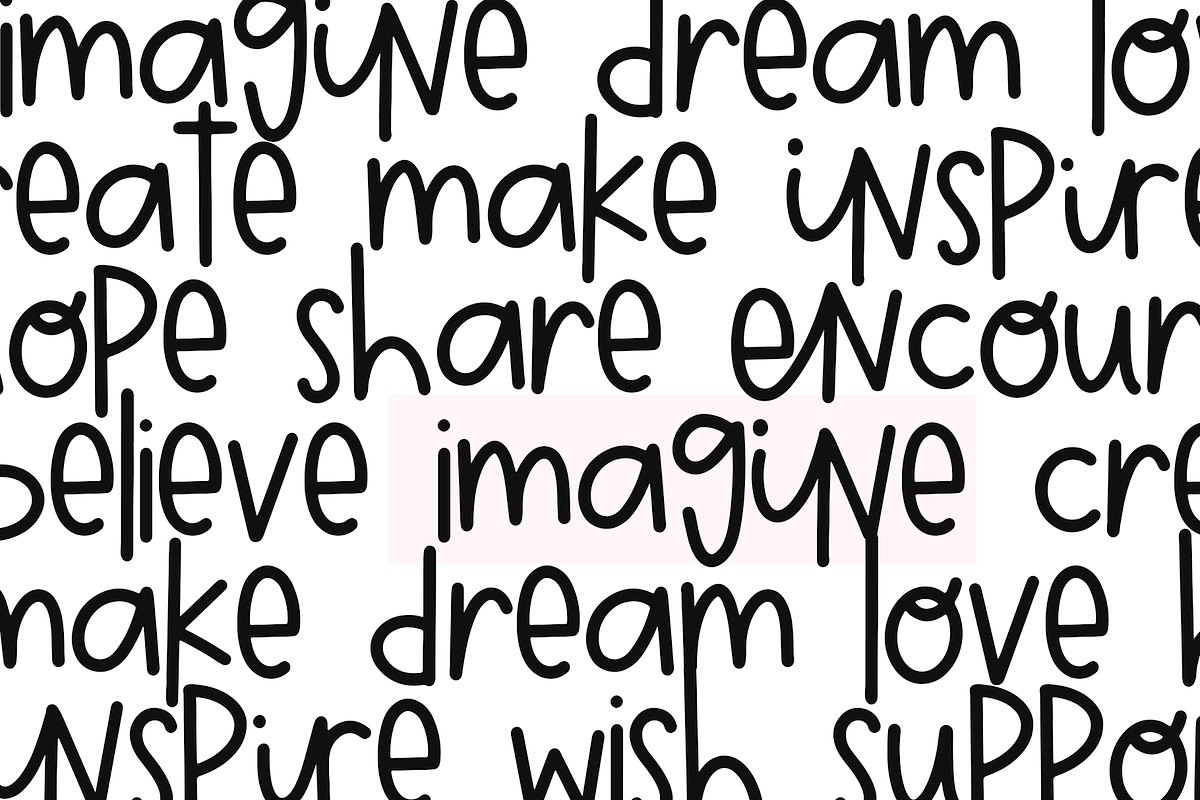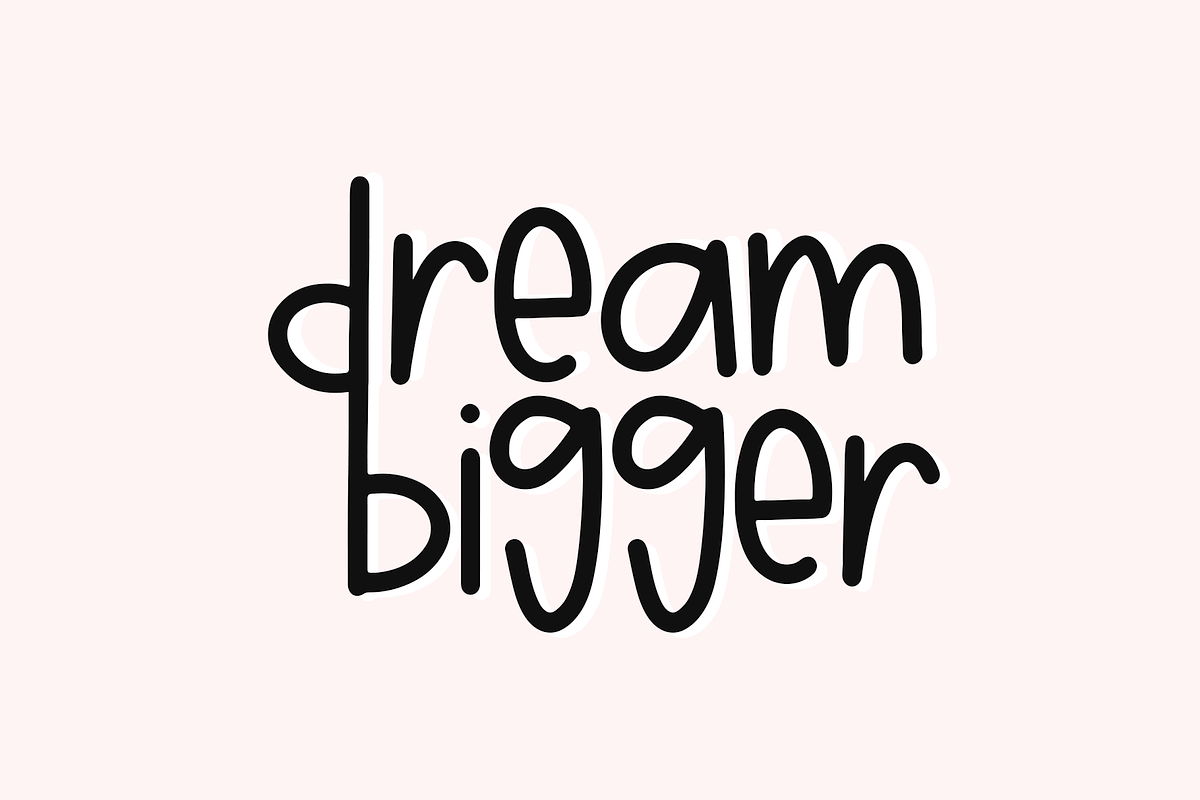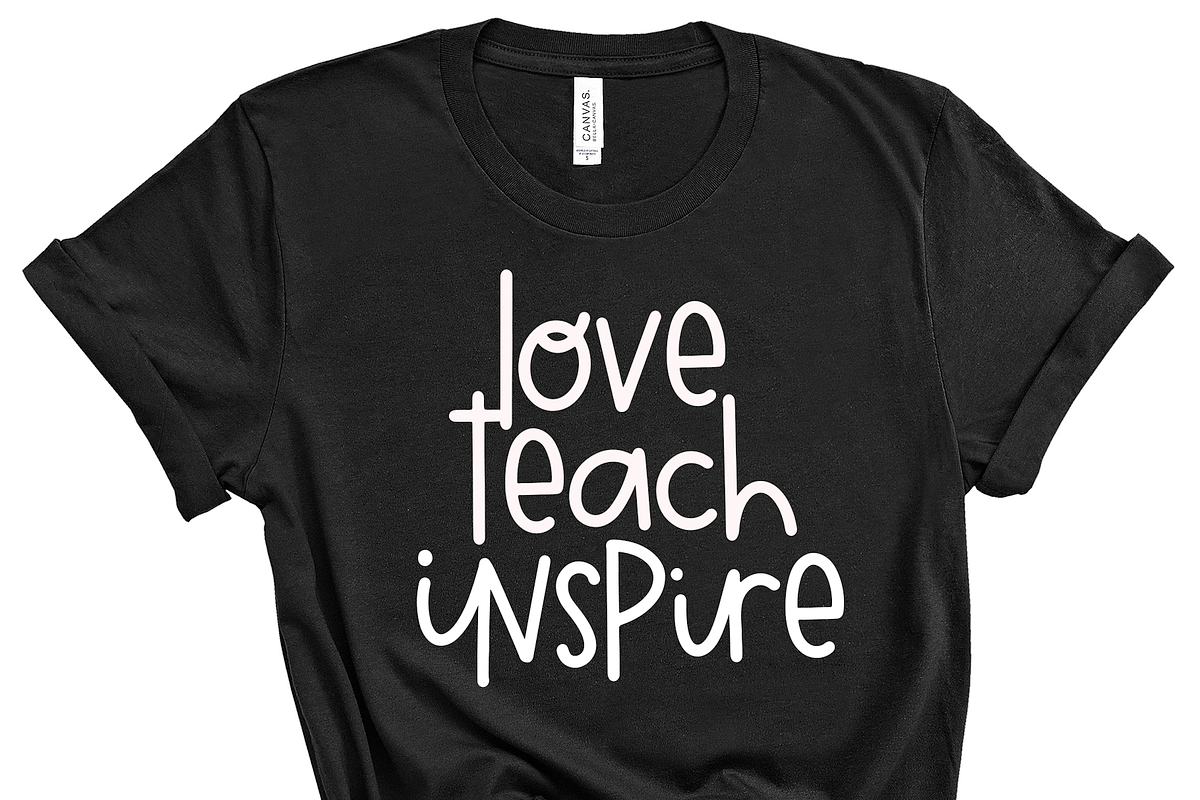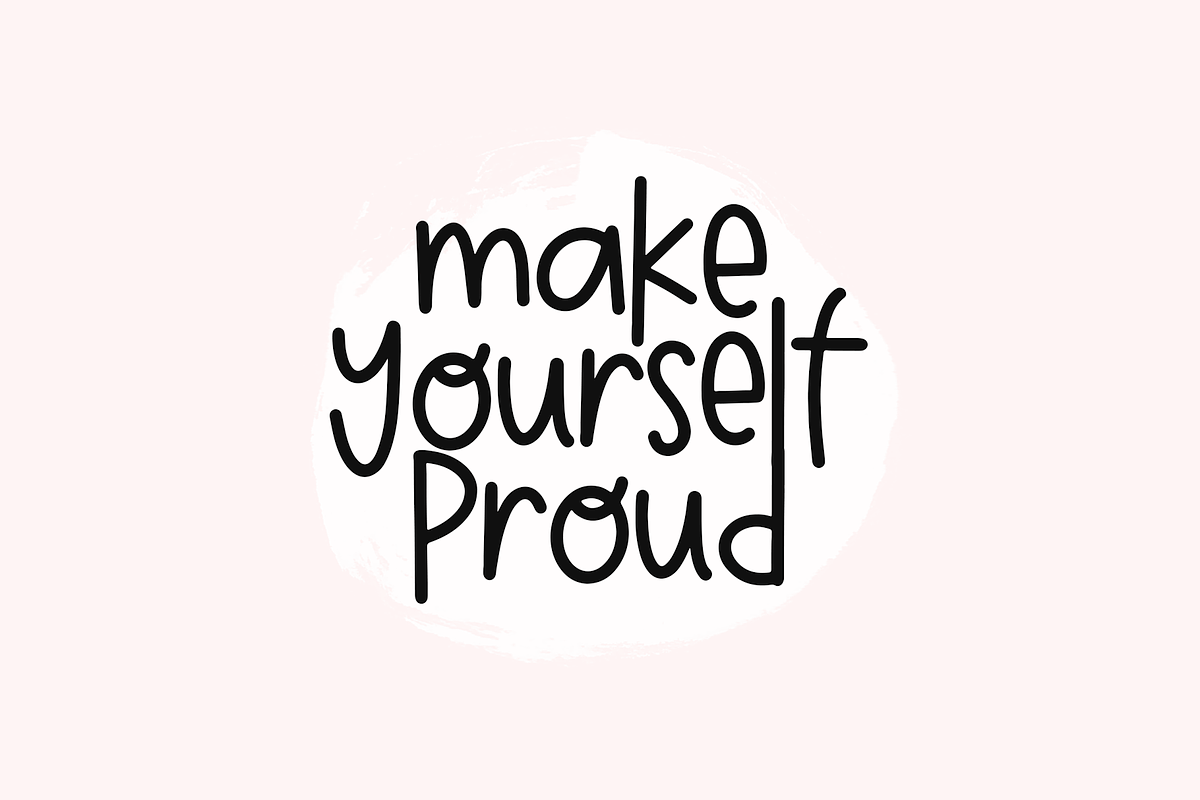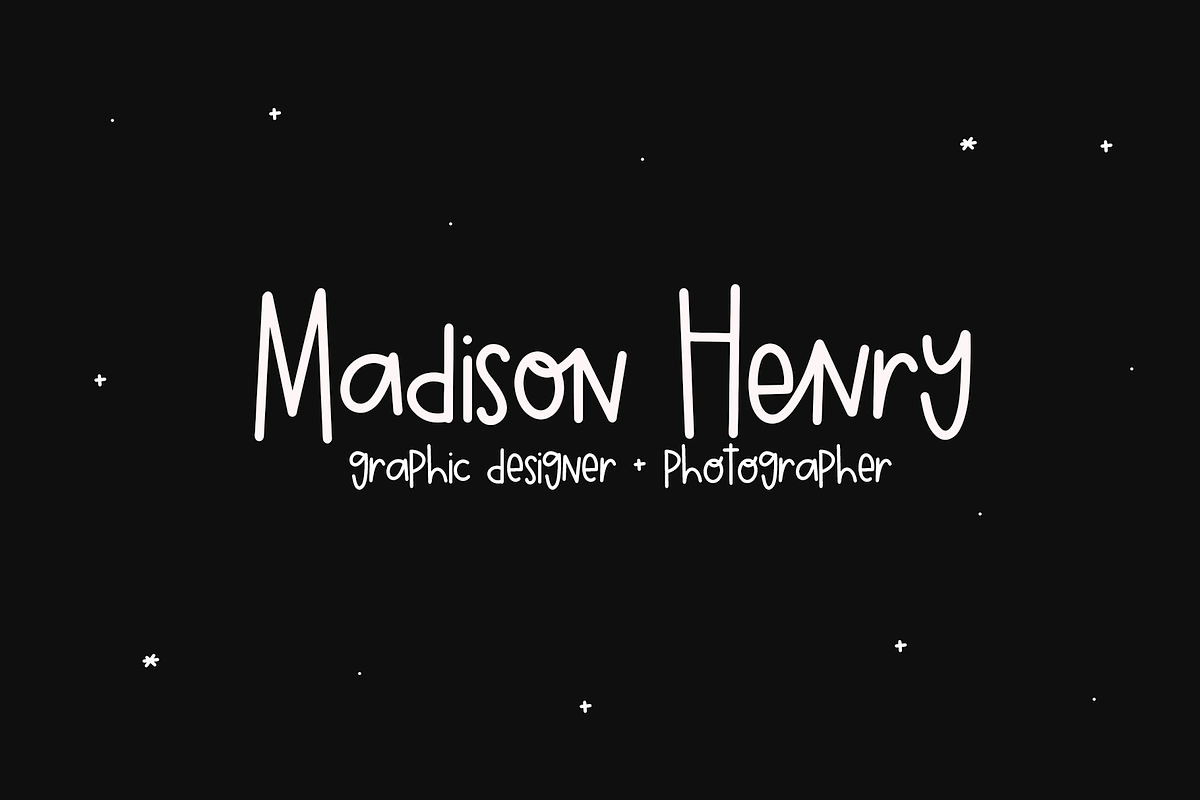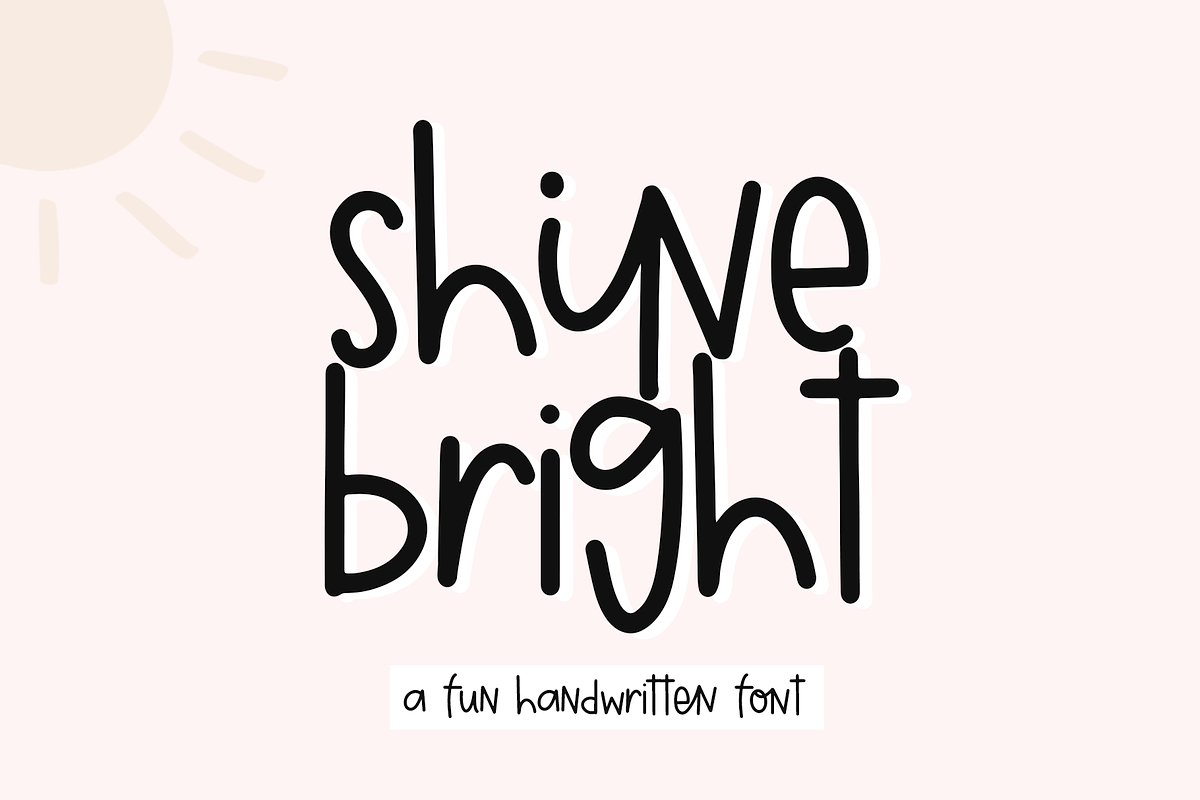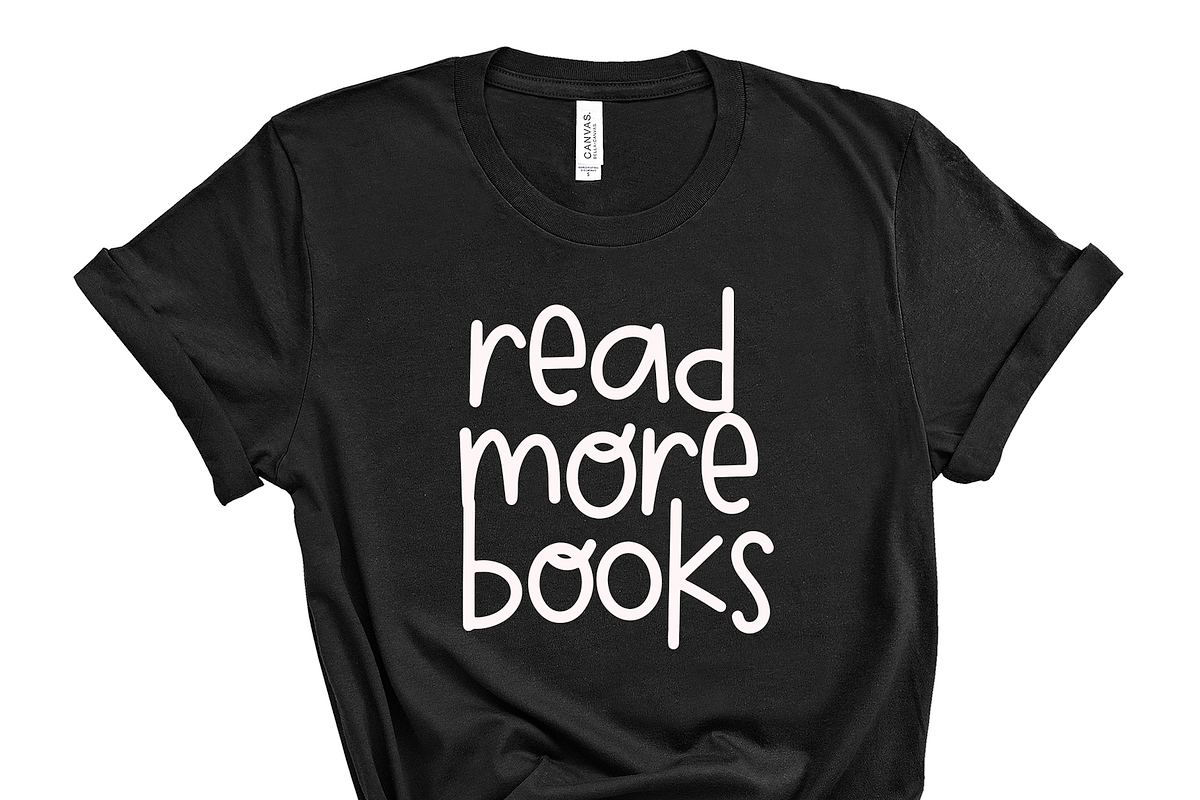
Shine Bright | Fun Handwritten Font
Shine Bright is a fun + quirky handwritten font.
This font is perfect for branding, logos, shirts, svg designs, crafting projects, cricut projects, social media, instagram, web and more!
Shine Bright | Fun Handwritten Font by KA Designs fits naturally into Branding, posters, packaging, typography.